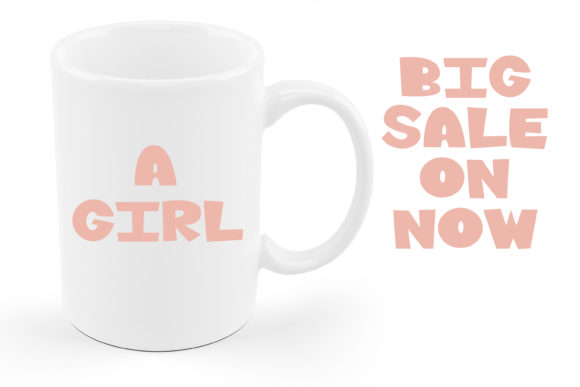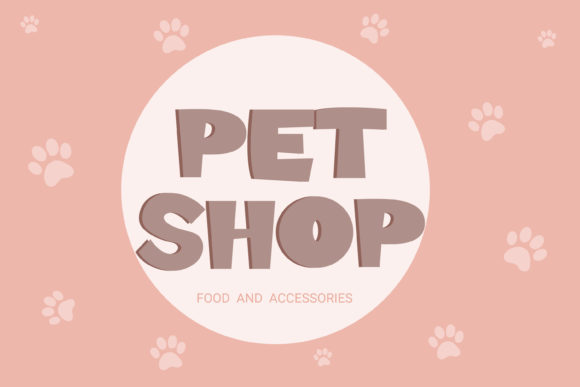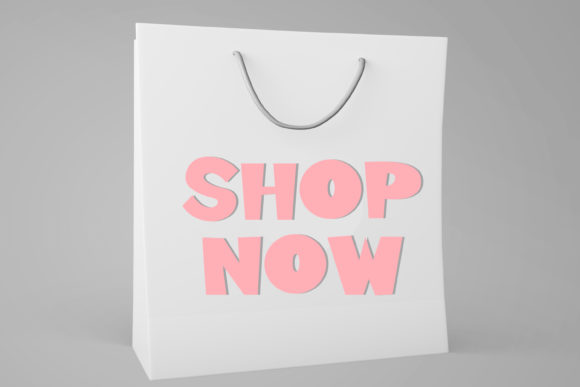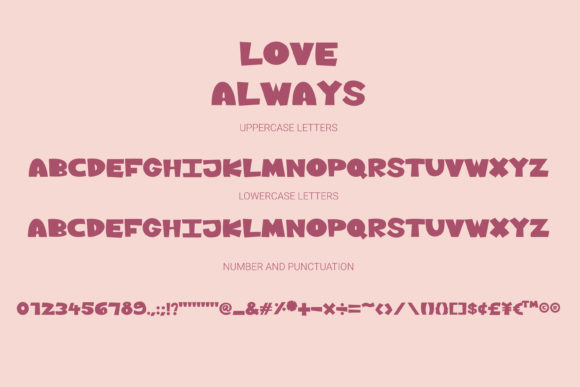
Introduction to Love Always Font
Remember the moment when you’re working on a creative project and the perfect font suddenly pops up, transforming your entire design? That’s exactly what we’re about to share with you. Say hello to the Love Always Font, a stunning font that’s perfect for adding a touch of sophistication to your next project.
With its bold and chunky characters, the Love Always Font is an excellent choice for logos, branding, packaging design, and more. This high-quality design resource is available for free download, making it a valuable asset for designers of all levels. Whether you’re working on a personal or professional project, the Love Always Font is sure to make a statement. Its transparent background and extended characters make it easy to use in a variety of creative applications.
As a designer, you know how crucial it is to have access to high-quality design resources like the Love Always Font. With its versatility and sophistication, this font is sure to elevate your designs and leave a lasting impression on your audience.
Key Features of Love Always Font
- High-quality design: This font is designed with precision and care, resulting in a high-quality design that is perfect for various applications.
- Transparent background: The Love Always Font features a transparent background, allowing for seamless integration with any design or image.
- High-resolution design: The font is designed at a high resolution, ensuring that it looks crisp and clear on various devices and screen sizes.
- Perfect for romantic projects: The Love Always Font is particularly well-suited for romantic projects, such as wedding invitations, Valentine’s Day cards, and other creative expressions of love.
Honest Review: Love Always Font
I recently had the chance to work with the Love Always Font for a creative project, and I must say, it’s a great addition to any designer’s toolbox. The font is available as a free download, which is always a plus, and it’s definitely high quality.
One of the things that works well with this font is its versatility. It can be used for a variety of design projects, from romantic wedding invitations to casual greeting cards. The font also comes with a transparent background, which makes it easy to use with any background image or color.
- ✨ Easy to use and customize
- ✨ Suitable for a wide range of design projects
- ✨ High quality and visually appealing
Overall, I’m quite impressed with the Love Always Font. It’s a great design resource for personal projects or non-commercial use, and it’s definitely worth checking out if you’re looking for a high-quality, free font.
Introduction to Love Always Font
The Love Always Font is a high-quality, free design resource ideal for creative projects that require a touch of elegance and sophistication. Its transparent background makes it easy to customize and integrate into various design applications.
– Use the font to create eye-catching titles, headings, and other text elements.
To maximize the impact of Love Always Font, experiment with different text settings, colors, and layouts. Combine it with other design resources to create a unique and visually appealing design.
Common Use Cases for Love Always Font
This font is perfect for:
- Valentine’s Day and love-themed designs
- Romantic gift tags and labels